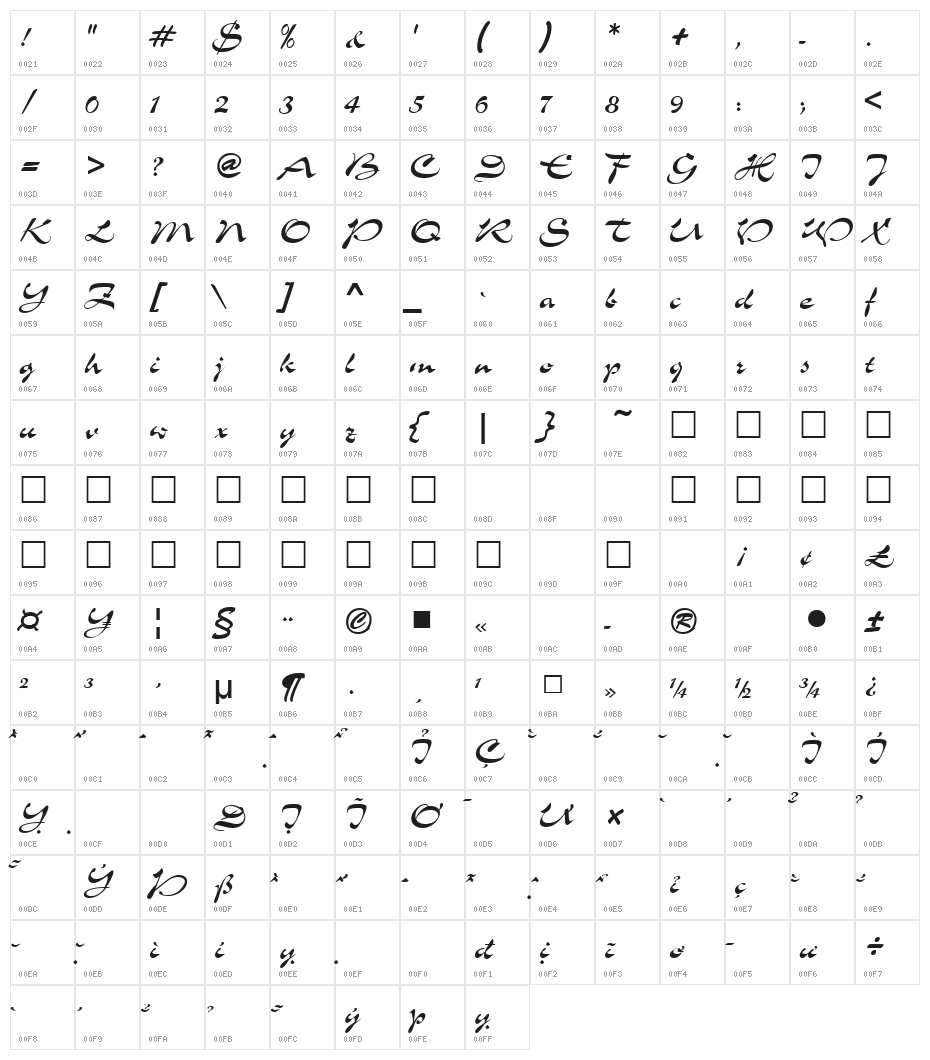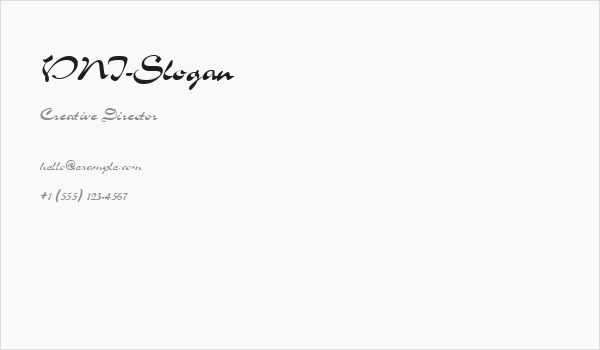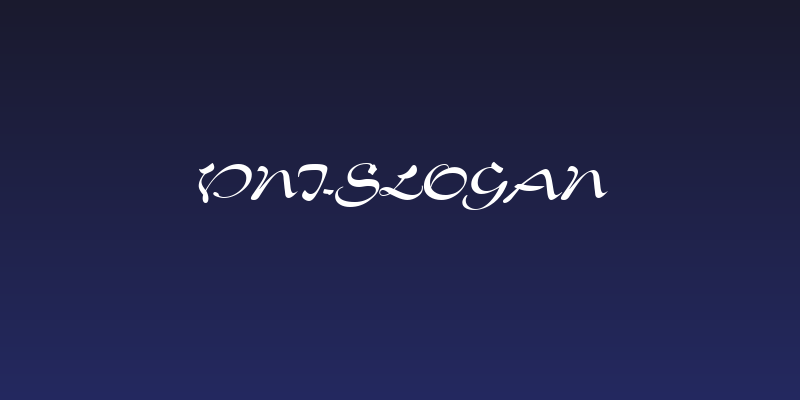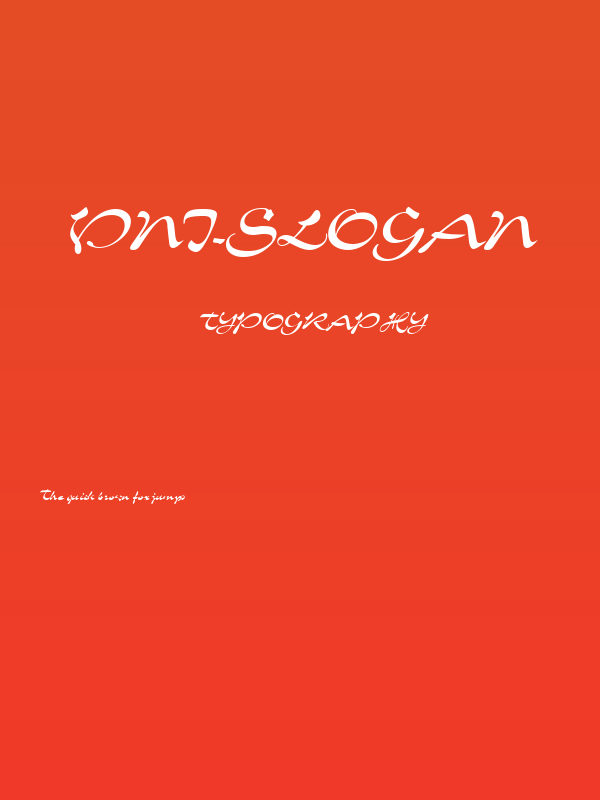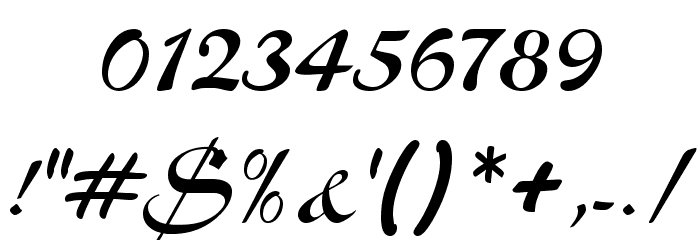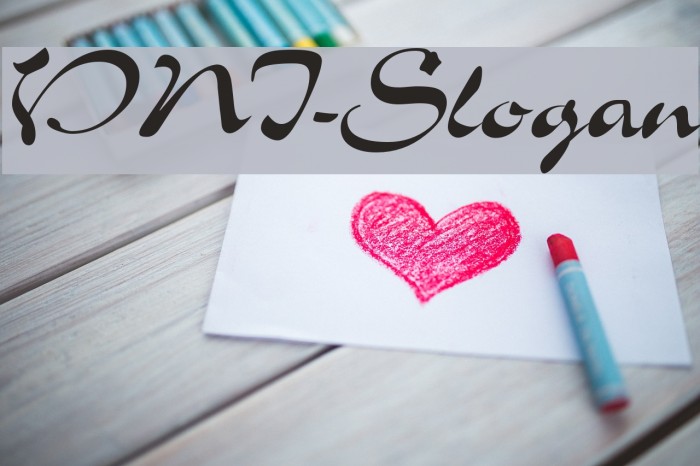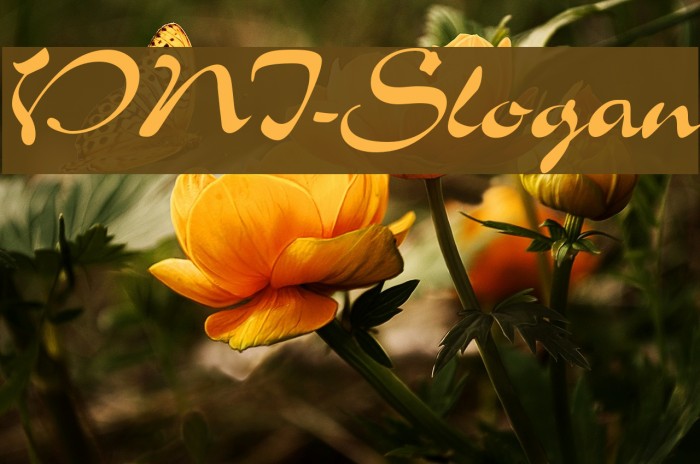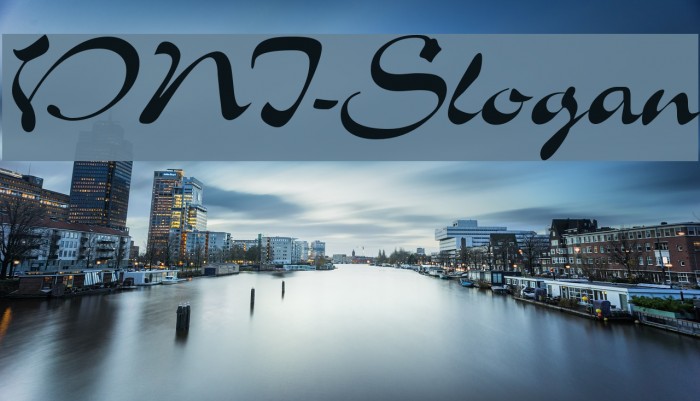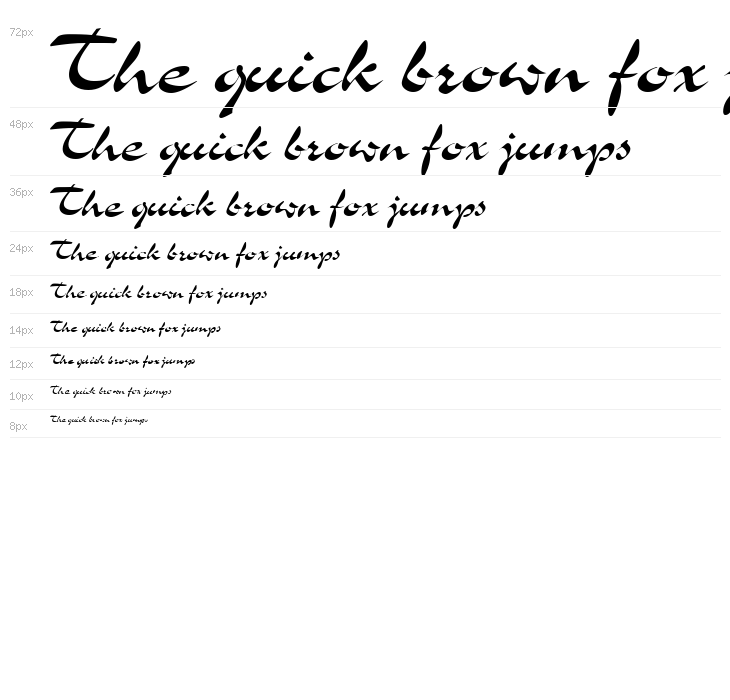
VNI-Slogan Font
VNI-Slogan Description
This font exudes a dynamic and elegant script style, characterized by its flowing, cursive letterforms that mimic the fluidity of handwriting. The uppercase letters are particularly ornate, with sweeping curves and flourishes that add a touch of sophistication. The lowercase letters maintain a consistent style, offering a harmonious blend of readability and decorative flair. The numerals are bold and slightly slanted, matching the overall aesthetic of the alphabet. Special characters are crafted with the same attention to detail, ensuring they integrate seamlessly with the text. This font is ideal for projects that require a personal, artistic touch, such as invitations, greeting cards, or branding materials.
| Overall Style | Elegant, Artistic |
| Proposed Projects | Ideal for invitations, greeting cards, branding, and artistic projects. |